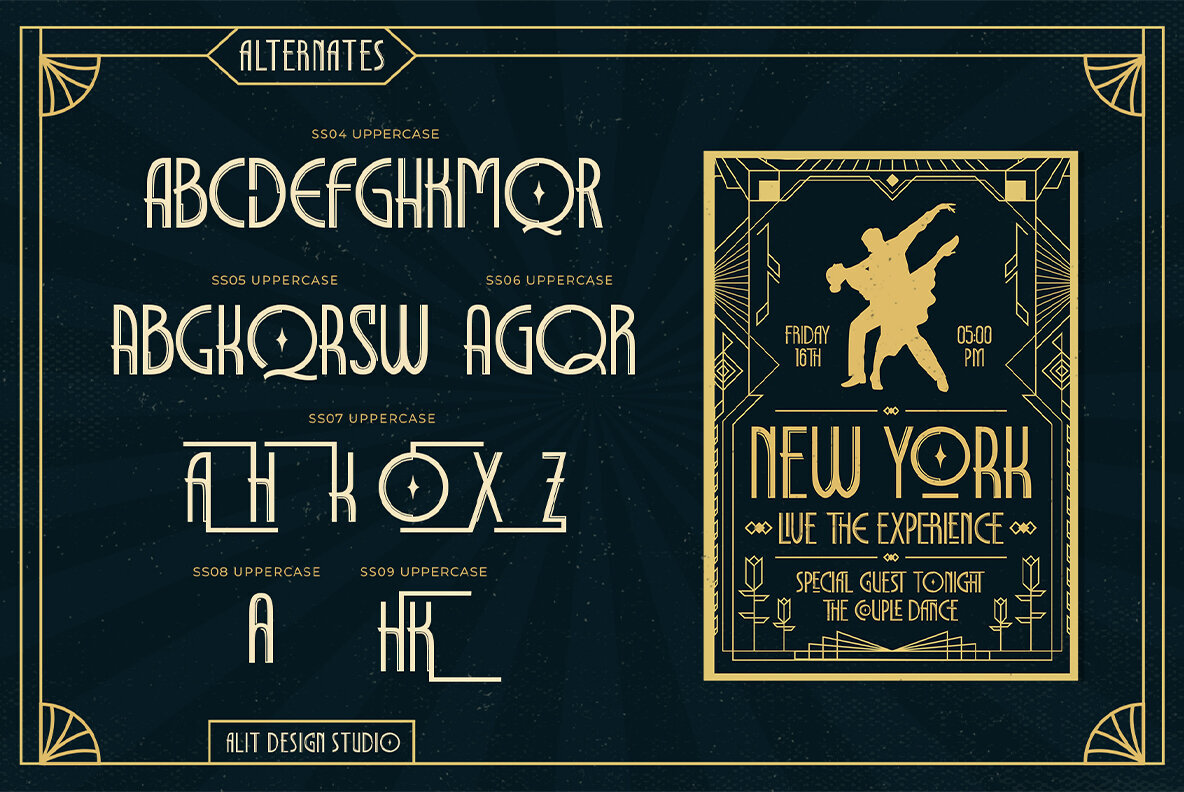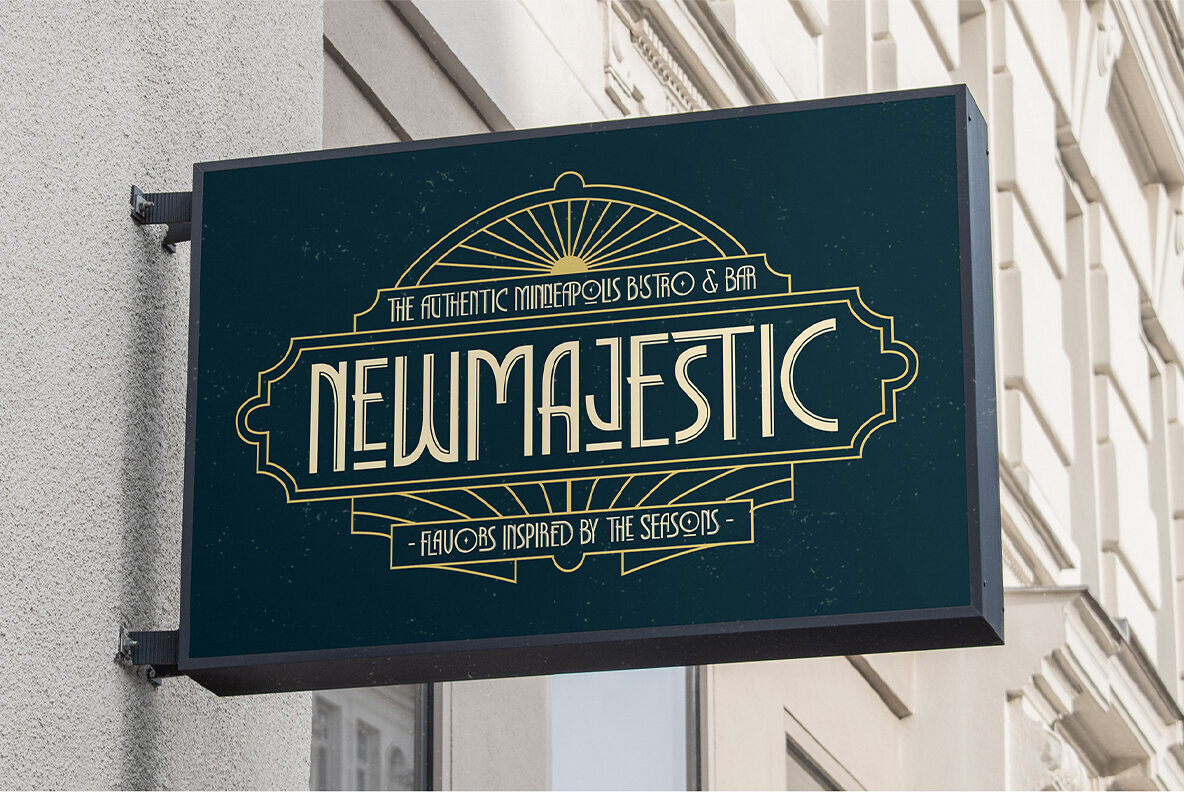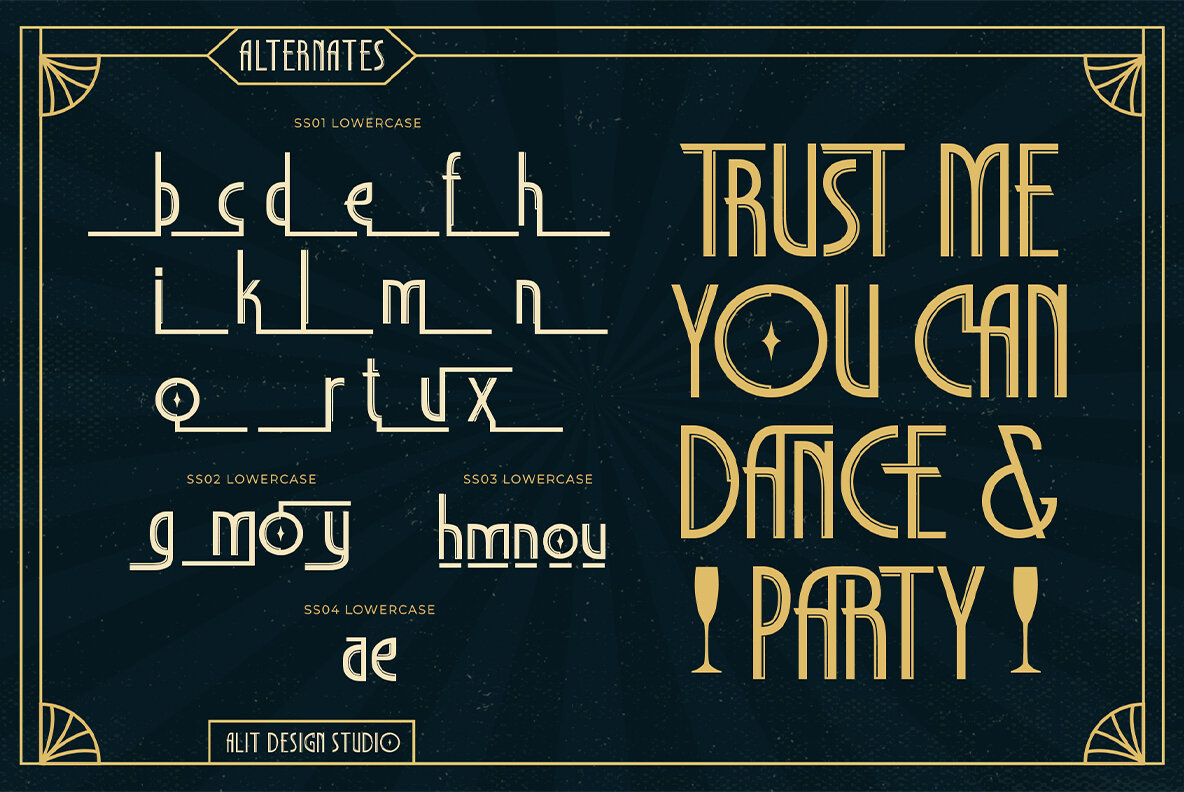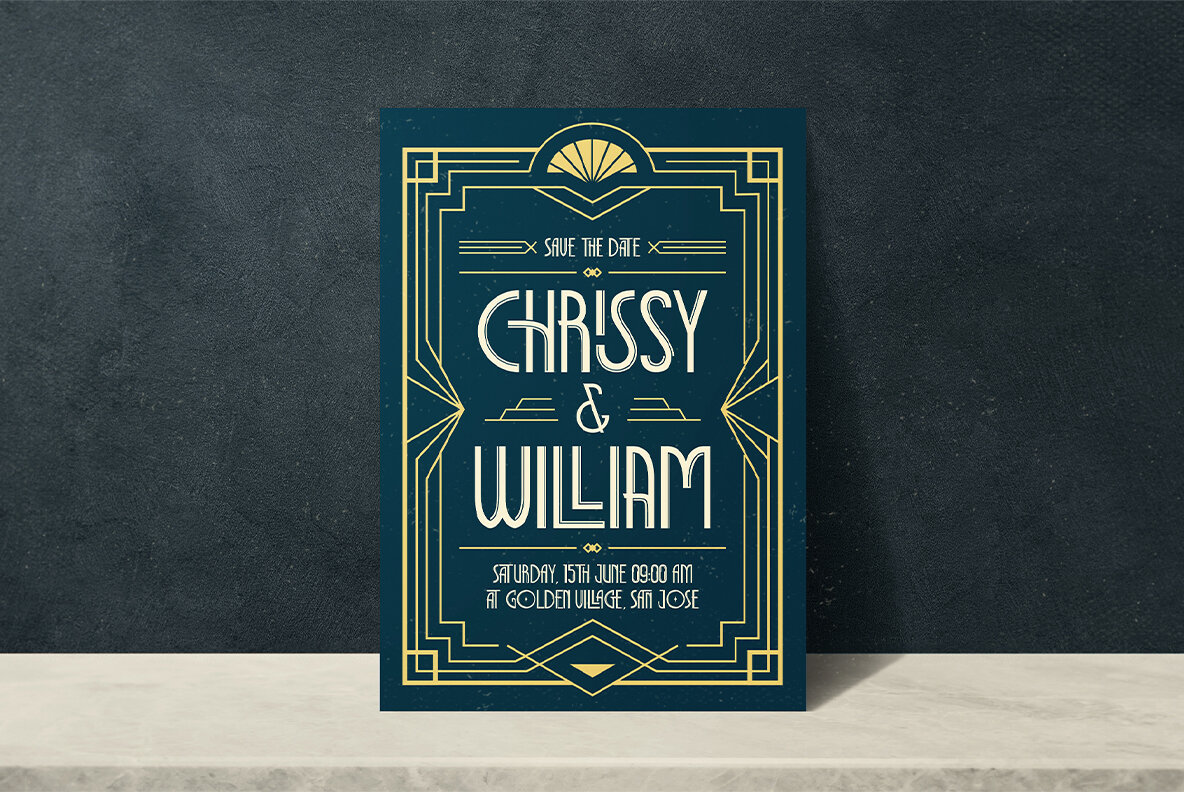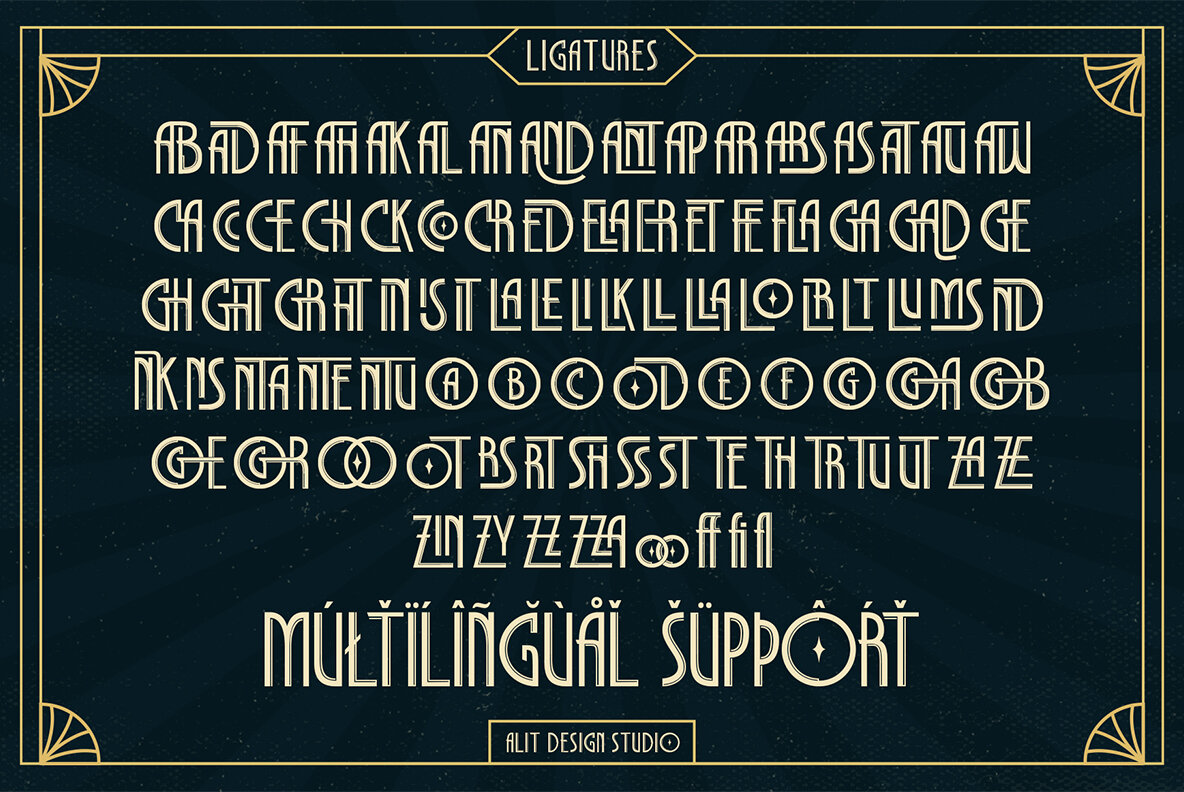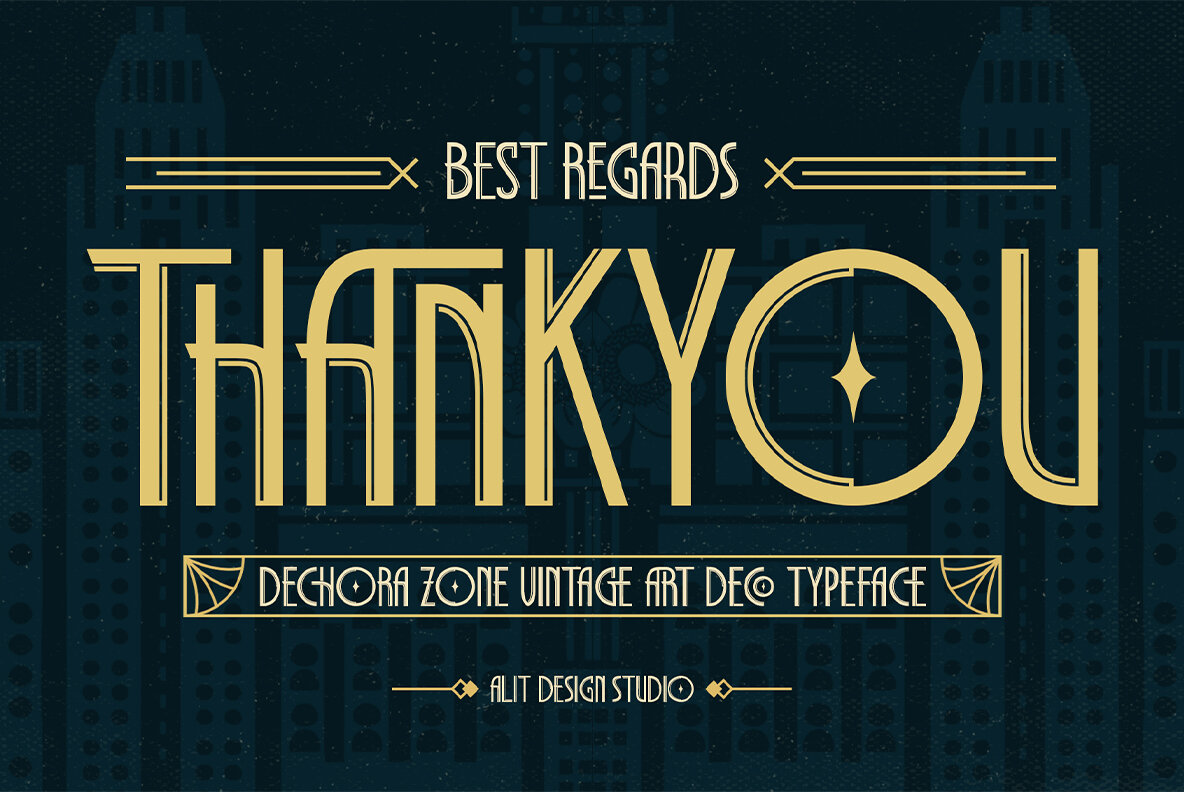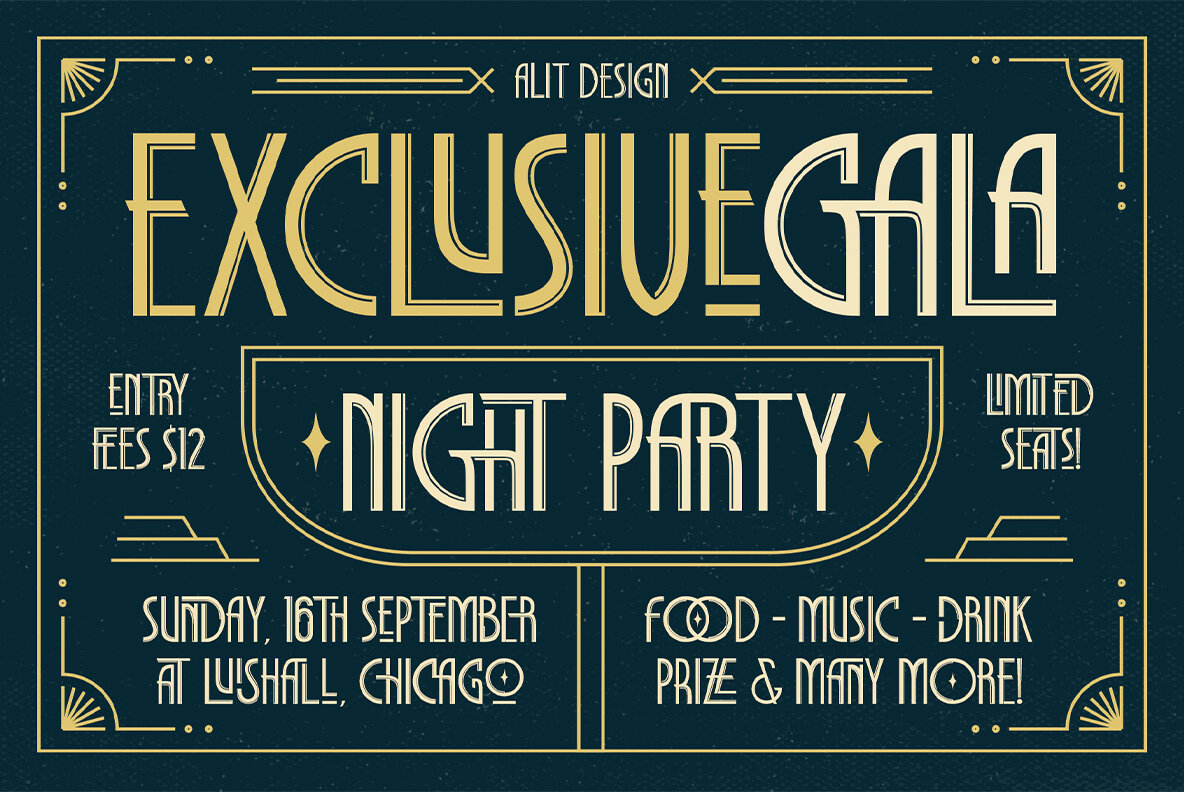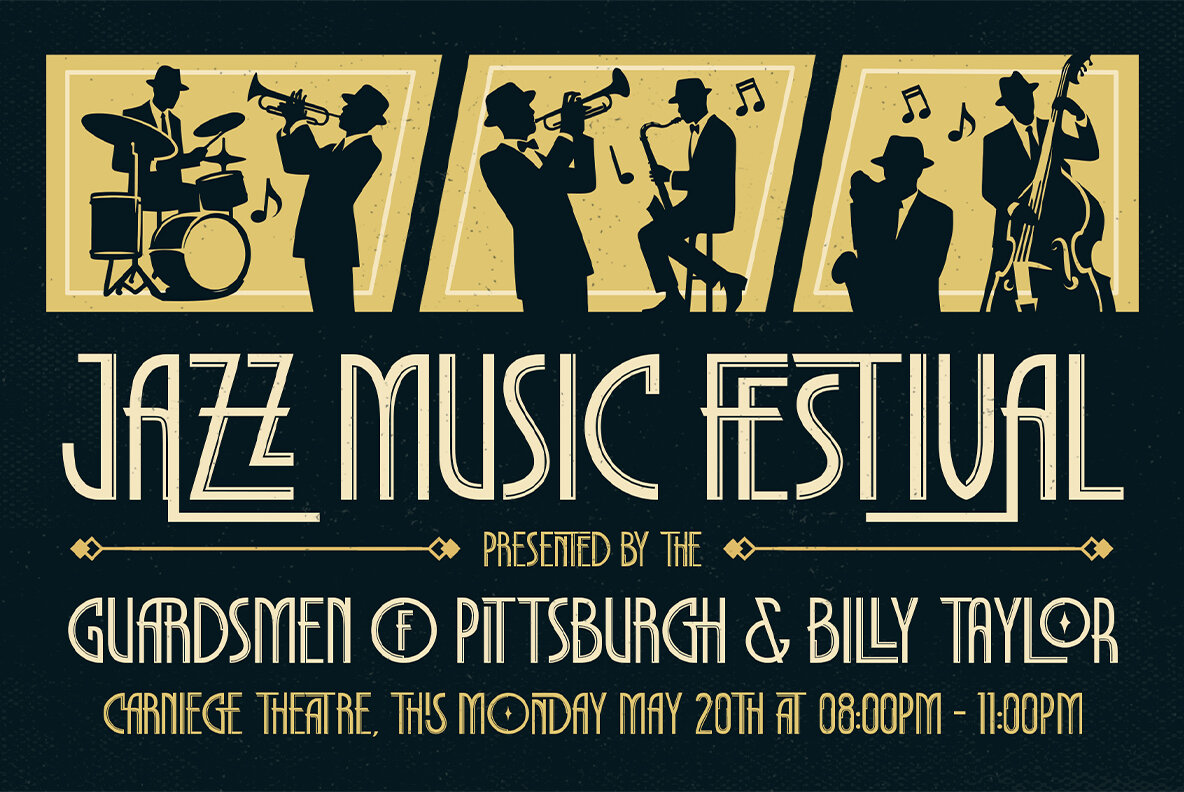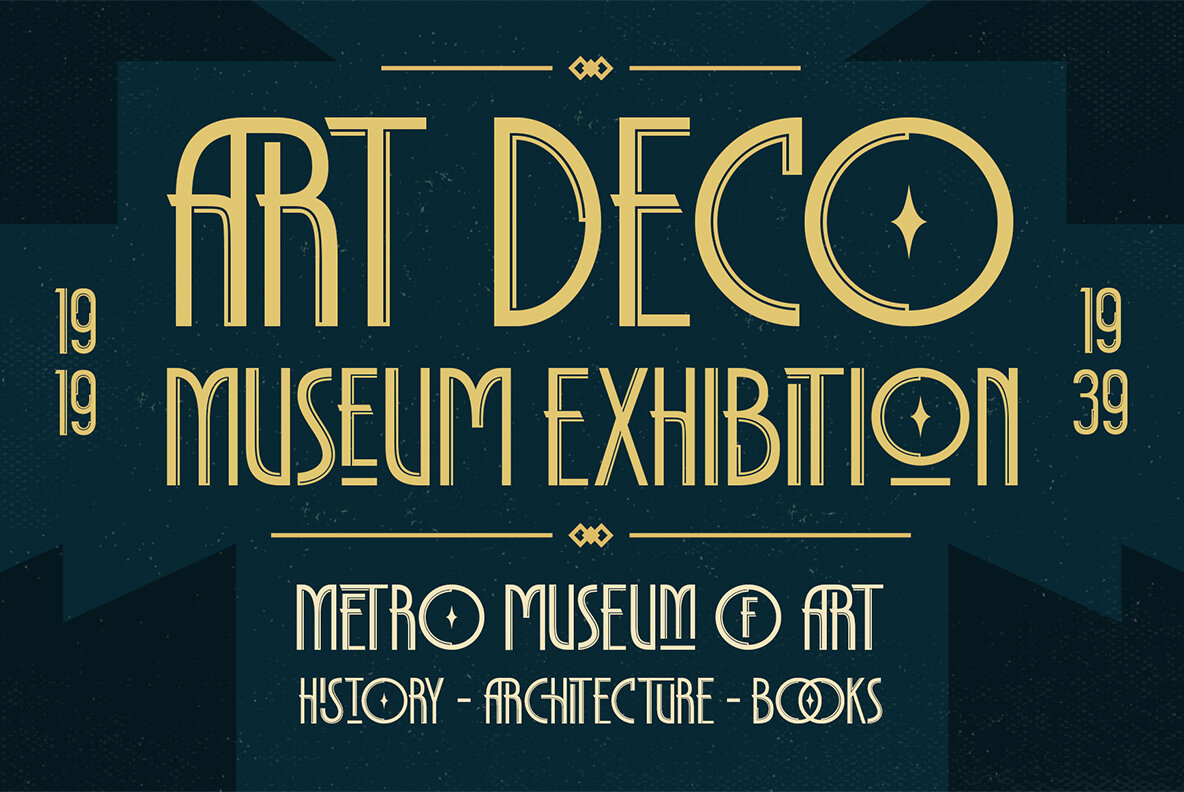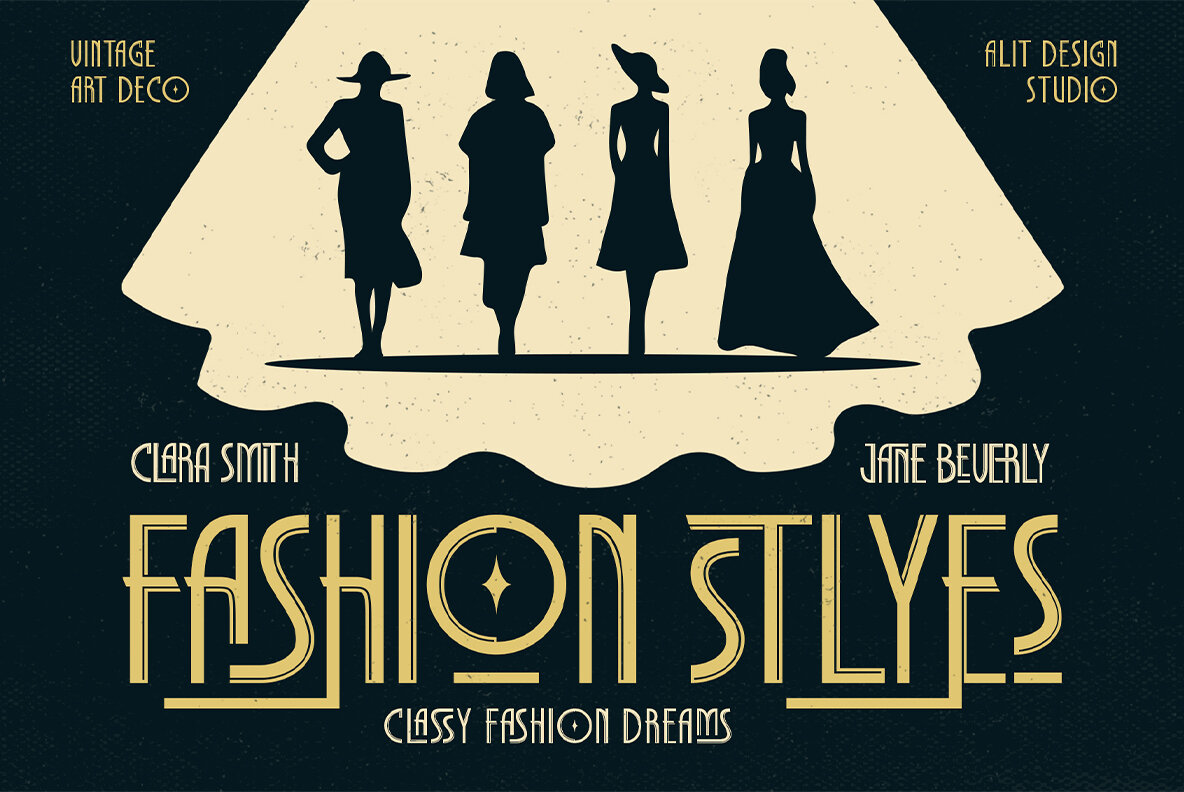
Dechora Zone Font
Dechora Zone Typeface infuses your designs with a bold reinterpretation of Art Deco elegance. This typeface captures the distinctive aesthetic of the Art Deco era, seamlessly merging dynamic, flowing lines with a modern flair. Its unique fusion of vintage charm and contemporary sophistication makes it ideal for luxury branding, editorial layouts, event invitations, and packaging. Dechora Zone stands out, offering a touch of opulence and creativity to any project.
Font Features:
- 705 Characters: An extensive character set for versatile use.
- Alternates: Customizable stylistic options for personalized typography.
- Ligatures: Thoughtfully crafted letter combinations for a seamless flow.
- Swashes: Decorative flourishes to enhance compositions.
- Multilingual Support: Comprehensive language coverage for universal communication.
Transform your approach to Art Deco-inspired design with Dechora Zone Typeface, where historical allure meets modern edginess. Perfect for making a bold statement with timeless sophistication, this typeface allows you to unleash your creativity, bringing vintage elegance into the realm of modern artistry.